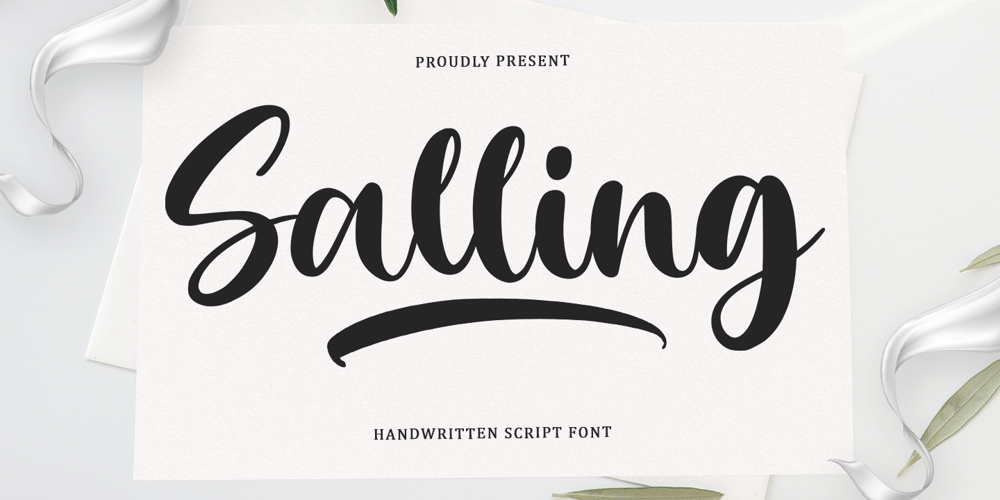
Salling Script Font Family was designed by Muhammad Taufik and published by Rastype Studio. Salling Script contains 2 styles and family package options. Salling Script is a handwritten font with a modern calligraphic feel.Salling Script is perfect for modern projects, business cards, headers, blogs, logos, branding, invitations and more!The font includes multiple language support.Thank You!